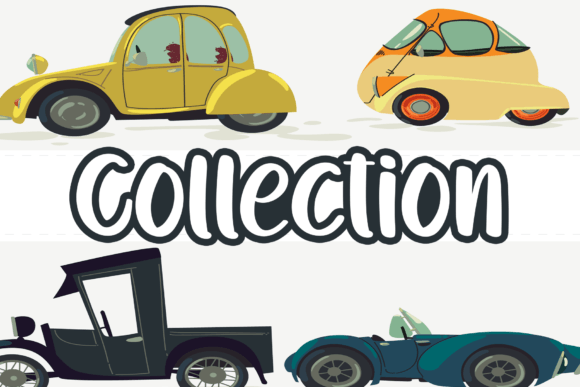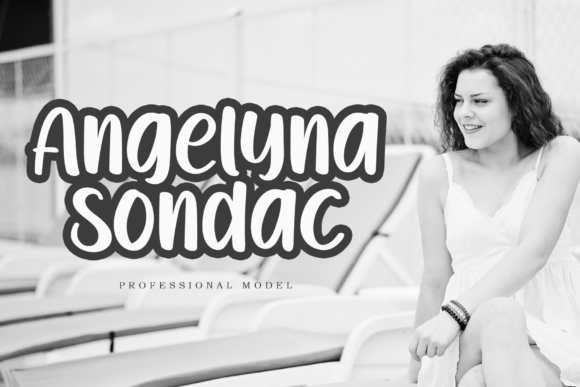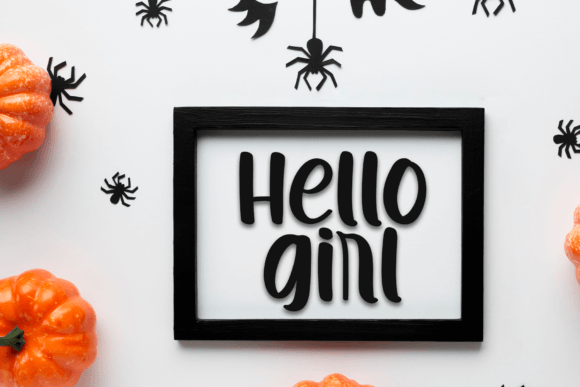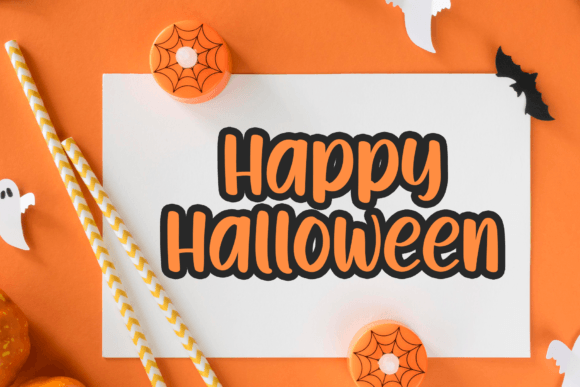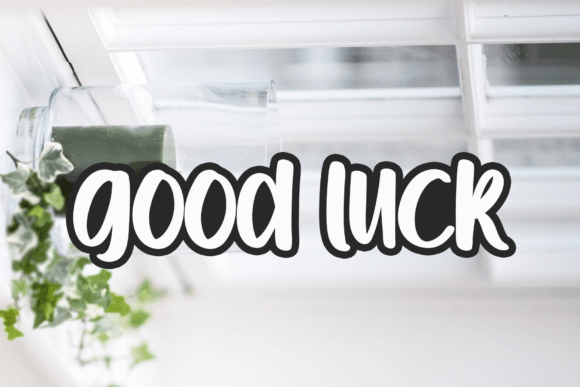
Introducing Digest Food Font: The Perfect Choice for Your Creative Projects
Are you a designer, crafter, or DIY enthusiast looking for a unique and eye-catching font to elevate your creative projects? Look no further than the Digest Food Font! This beautiful display font is designed to add a touch of elegance and sophistication to your headlines, posters, covers, and crafting projects.
The Unique Charm of Digest Food Font
What sets Digest Food Font apart from other typefaces is its thick and softly curved characters. This distinctive design gives the font a charming and alluring look that’s sure to grab attention. The smooth curves and rounded edges of the letters create a sense of warmth and friendliness, making it perfect for projects that require a personal touch.
Digest Food Font is an incredibly versatile typeface that can be used for a wide range of creative projects. Here are just a few ideas to get you started:
- Headlines and Titles: Use Digest Food Font to create eye-catching headlines and titles for your blog posts, articles, and social media updates.
- Posters and Flyers: Add a touch of elegance to your posters and flyers with Digest Food Font. Perfect for advertising events, promotions, or new product launches.
- Covers and Packaging: Use Digest Food Font to create stunning covers for your books, magazines, or product packaging.
- Crafting Projects: Add a personal touch to your crafting projects, such as handmade cards, gift tags, or scrapbooking pages.
Why Choose Digest Food Font?
With so many fonts available, why choose Digest Food Font? Here are just a few reasons:
- Unique Design: Digest Food Font has a distinctive design that’s sure to stand out from the crowd.
Tips for Using Digest Food Font
To get the most out of Digest Food Font, here are a few tips:
- Use it sparingly: Digest Food Font is a display font, so use it sparingly to add emphasis to your headlines and titles.
- Experiment with colors: Try pairing Digest Food Font with different colors to create a unique look.
- Mix and match: Combine Digest Food Font with other fonts to create a visually interesting design.
Digest Food Font is a beautiful and versatile typeface that’s perfect for designers, crafters, and DIY enthusiasts. With its unique design, ease of use, and high-quality results, it’s an excellent choice for a wide range of creative projects. Whether you’re looking to add a touch of elegance to your headlines, posters, or crafting projects, Digest Food Font is sure to impress.